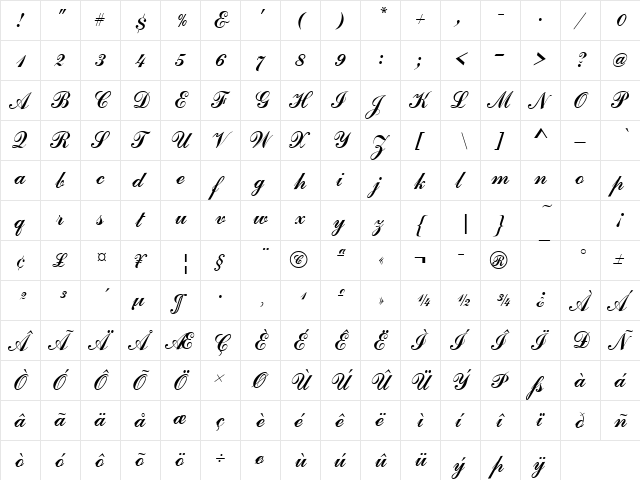
Commercial Becker Script Regular
Design Context for Commercial Becker Script Typeface
Commercial Becker Script flows with the natural rhythm of handwritten lettering, making it ideal for designs that call for warmth and personal expression.
Font Pairing: Combine Commercial Becker Script with a simple geometric sans for maximum contrast — the tension between flowing curves and clean structure is a classic typographic pairing.
Pro Tip: Use Commercial Becker Script for short runs of text — names, titles, or taglines. Extended body copy in script faces tires the eye quickly.